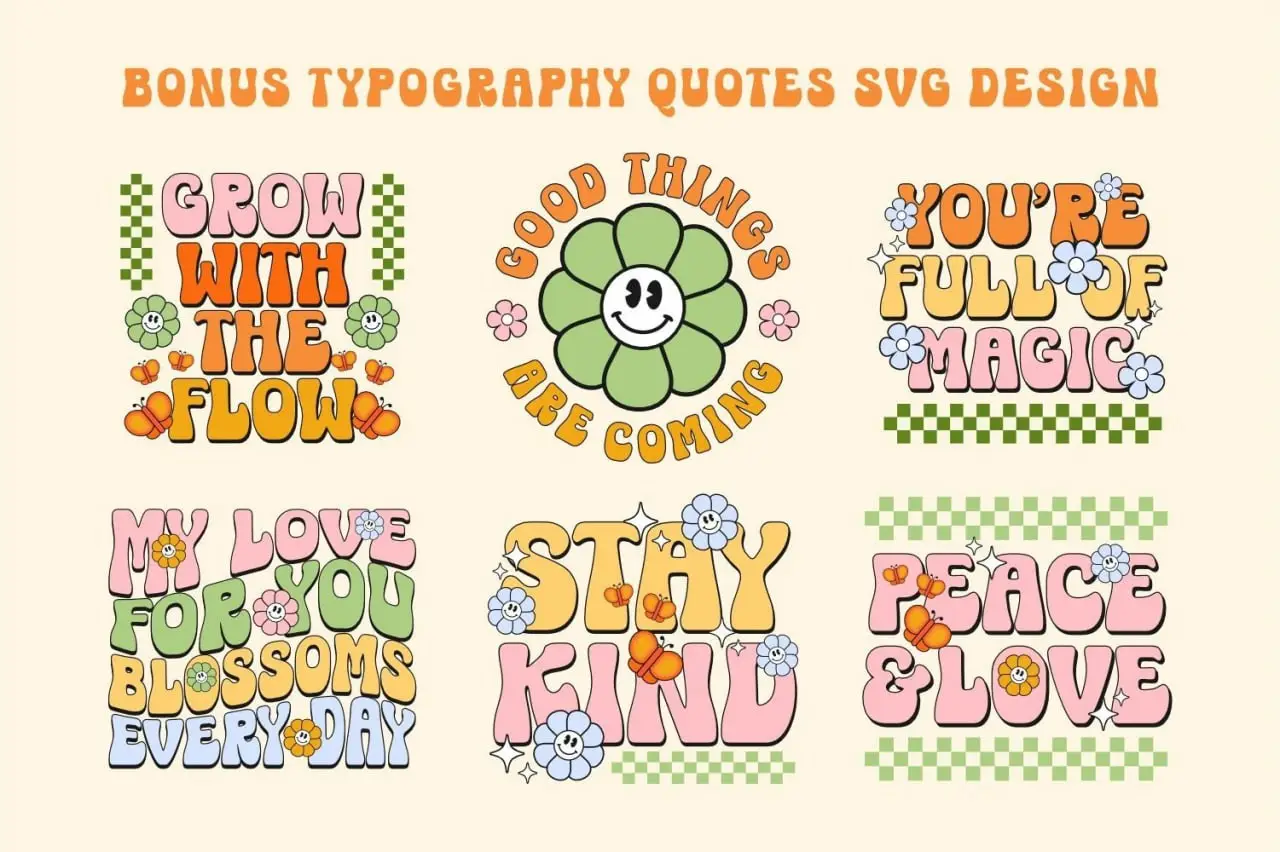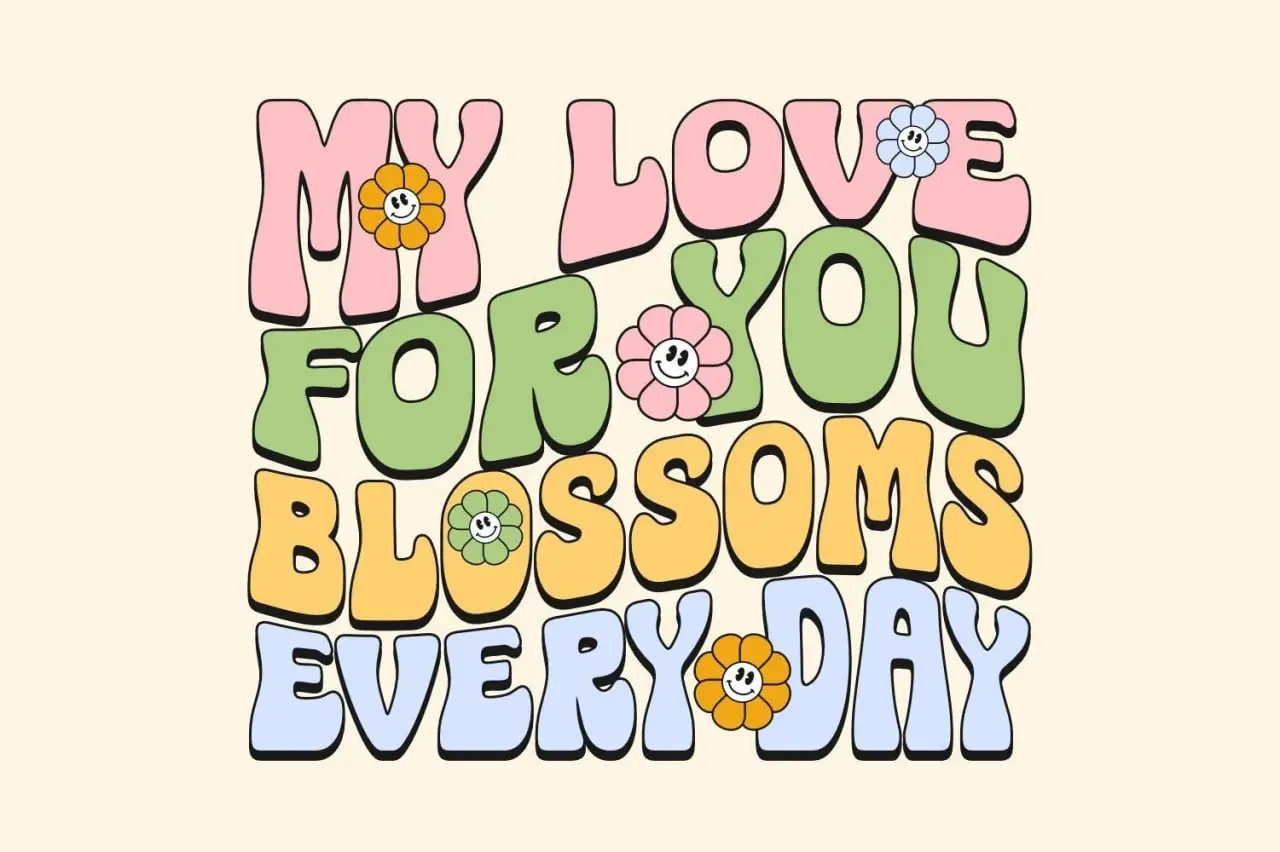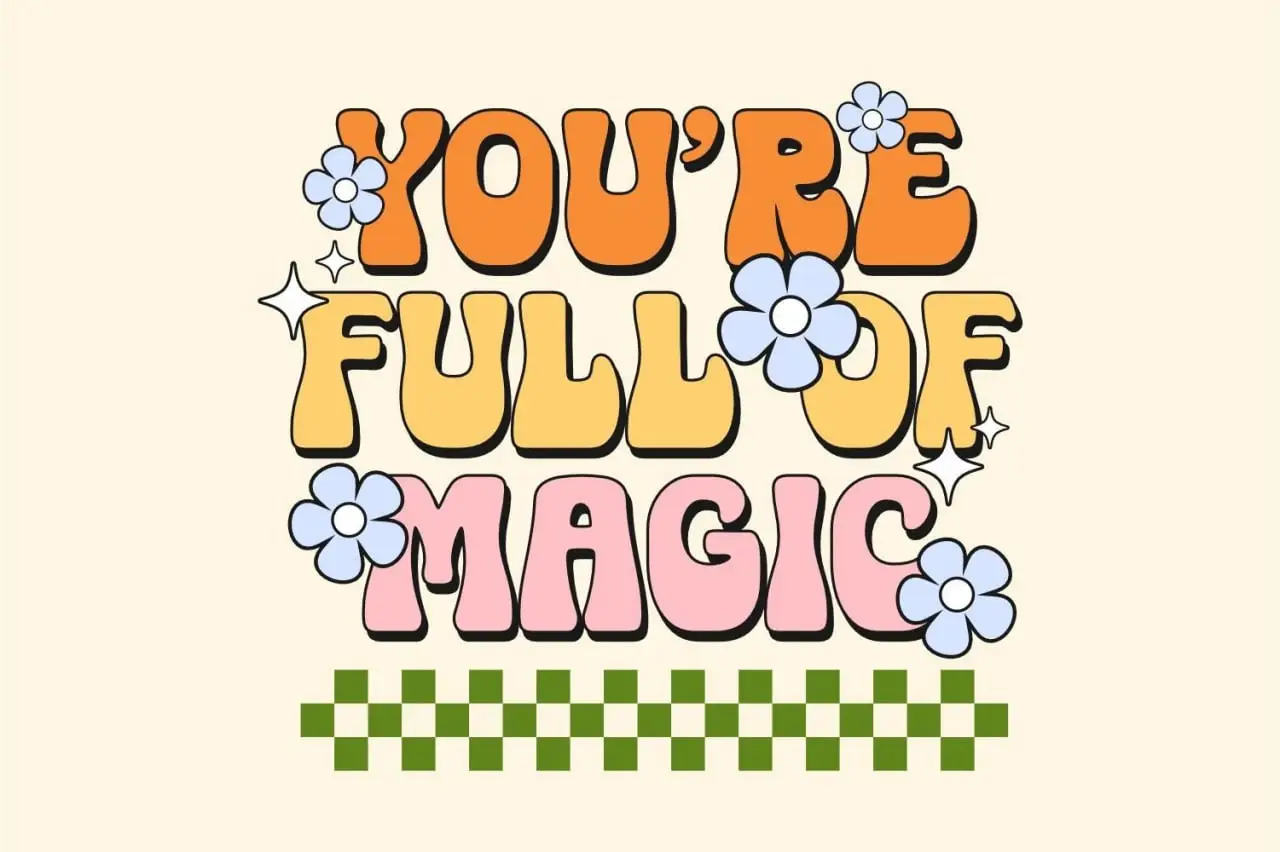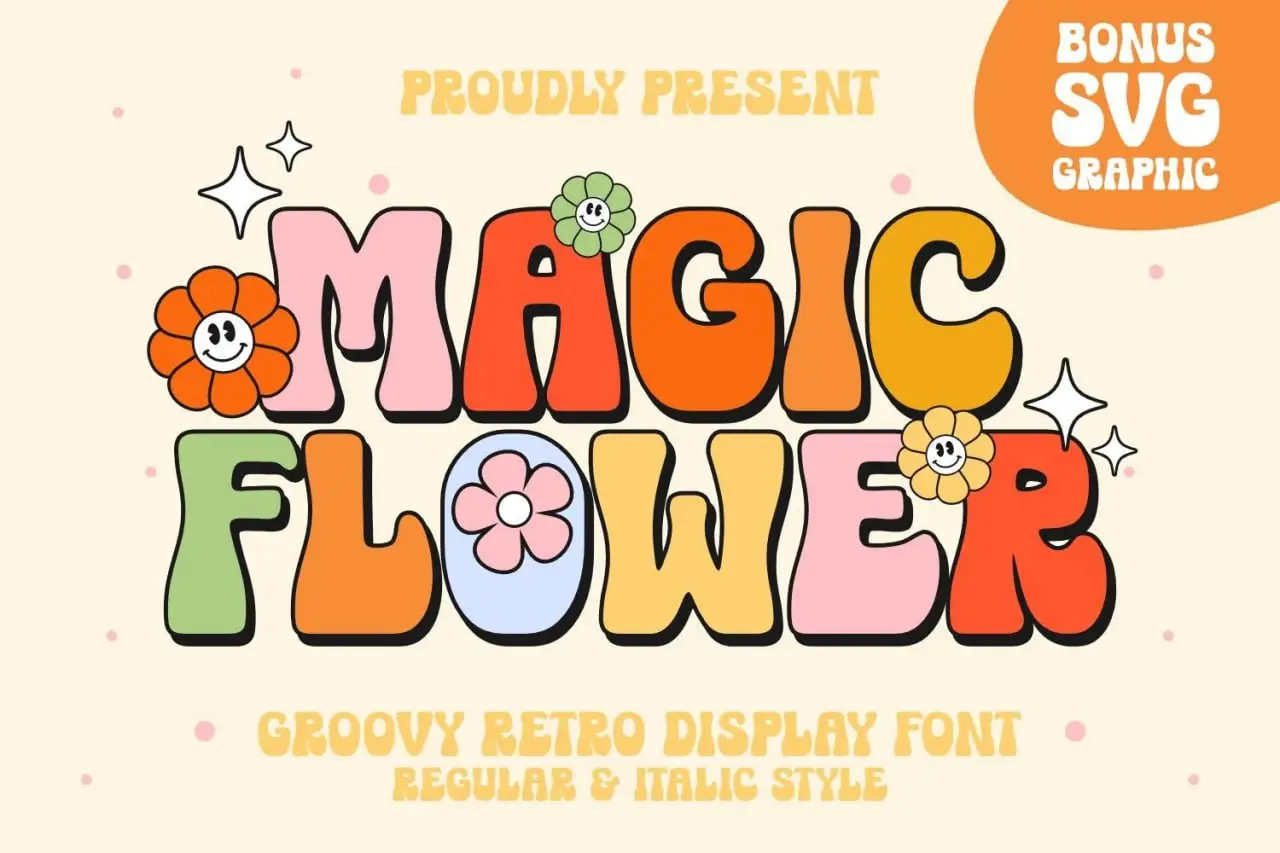
Magic Flower Font By Keithzo (7Ntypes)
Introducing the Magic Flower Font by Keithzo, a unique typeface that brings a touch of whimsy and creativity to your design projects. This font features a playful floral design, perfect for adding a distinctive flair to your branding, logos, and more.
• Stylish floral motifs integrated into the letterforms
• Available in multiple weights for versatile use